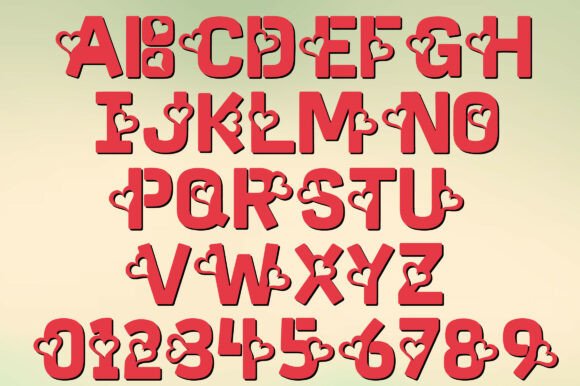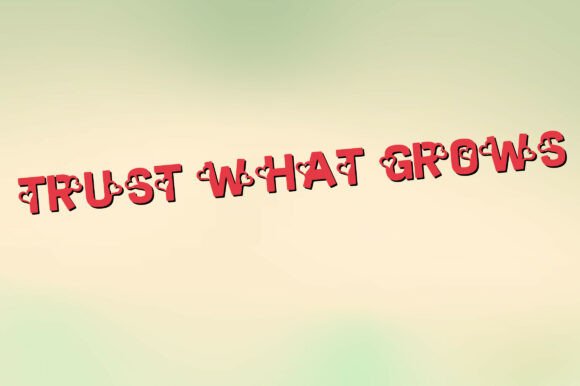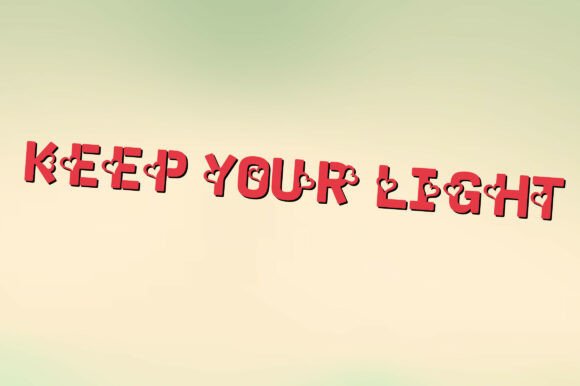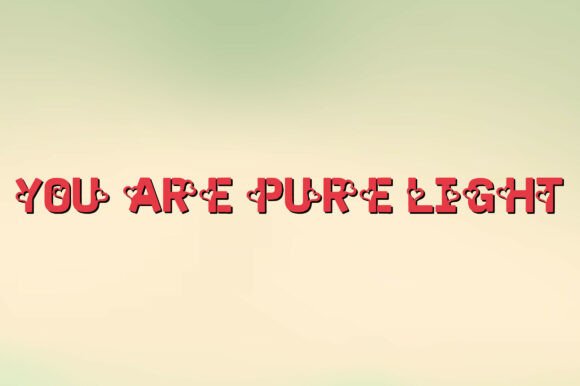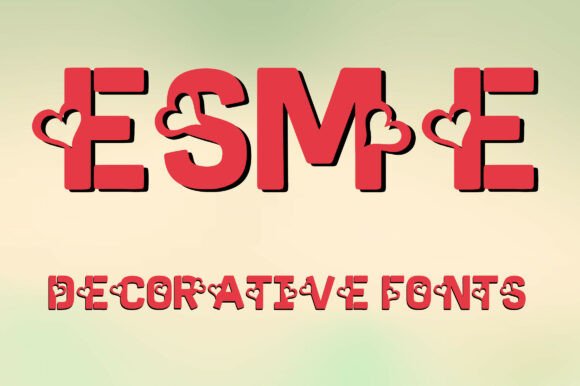
Introducing Esme Font: The Playful Decorative Display Font with a Romantic Charm
Are you looking for a font that can add a touch of playfulness and romance to your designs? Look no further than Esme Font, a bold and handcrafted decorative display font that’s perfect for a variety of creative projects. In this article, we’ll take a closer look at Esme Font, its features, and how you can use it to elevate your designs.
What is Esme Font?
Esme Font is a decorative display font that’s designed to add a touch of sweetness and charm to your designs. Its uppercase letterforms feature thick rounded strokes, strong shadow details, and adorable heart accents that give each character a unique and eye-catching look. The font is designed with uppercase letters A-Z and numbers 0-9, making it perfect for a variety of applications.
Key Features of Esme Font
- Playful and Romantic Design: Esme Font has a playful and romantic design that’s perfect for designers and crafters who want to add a touch of whimsy to their work.
- Bold and Handcrafted Style: The font features a bold and handcrafted style that’s perfect for making a statement.
- Uppercase Letters and Numbers: Esme Font is designed with uppercase letters A-Z and numbers 0-9, making it perfect for a variety of applications.
- Adorable Heart Accents: The font features adorable heart accents that give each character a sweet and cheerful look.
- Strong Shadow Details: The font features strong shadow details that add depth and dimension to each character.
Uses for Esme Font
Esme Font is a versatile font that can be used for a variety of creative projects, including:
- Logos: Esme Font is perfect for creating logos that need a bold and eye-catching typeface.
- Posters: The font is great for creating posters that need a playful and romantic touch.
- Invitations: Esme Font is perfect for creating invitations that need a sweet and cheerful typeface.
- Greeting Cards: The font is great for creating greeting cards that need a playful and romantic touch.
- Packaging: Esme Font can be used for packaging designs that need a bold and eye-catching typeface.
- Stickers: The font is perfect for creating stickers that need a playful and romantic touch.
- Social Media Graphics: Esme Font can be used for social media graphics that need a bold and eye-catching typeface.
- Creative Projects: The font is great for a variety of creative projects that need a cute and memorable typeface.
Why Choose Esme Font?
There are many reasons why you should choose Esme Font for your next design project. Here are a few:
- Unique and Eye-Catching Design: Esme Font has a unique and eye-catching design that’s perfect for making a statement.
- Playful and Romantic Touch: The font adds a playful and romantic touch to any design, making it perfect for a variety of applications.
- Easy to Read: Despite its bold and decorative design, Esme Font is easy to read and understand.
- Versatile: The font is versatile and can be used for a variety of creative projects.
In conclusion, Esme Font is a playful decorative display font that’s perfect for designers and crafters who want to add a touch of whimsy to their work. Its bold and handcrafted style, adorable heart accents, and strong shadow details make it a unique and eye-catching font that’s perfect for a variety of creative projects. Whether you’re creating logos, posters, invitations, or social media graphics, Esme Font is a great choice.